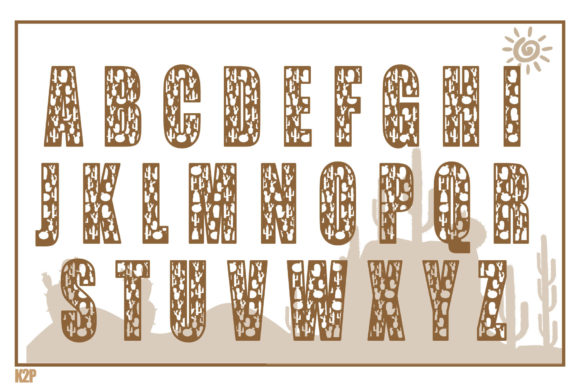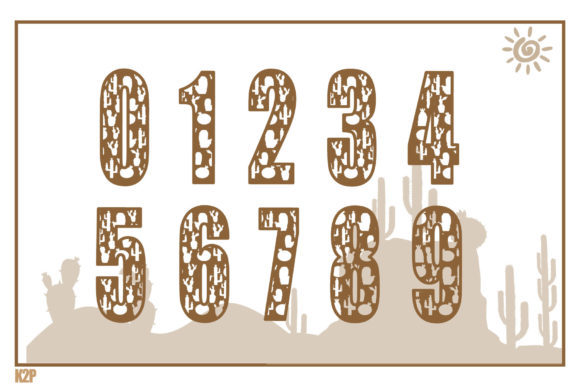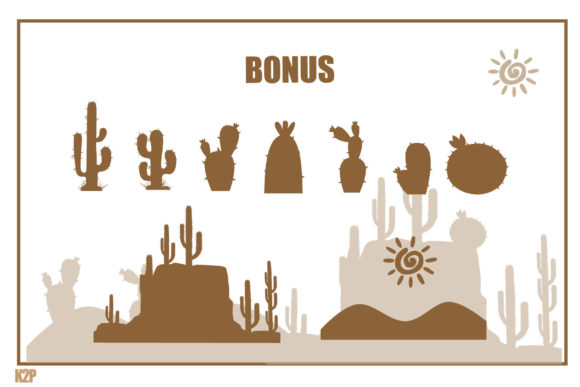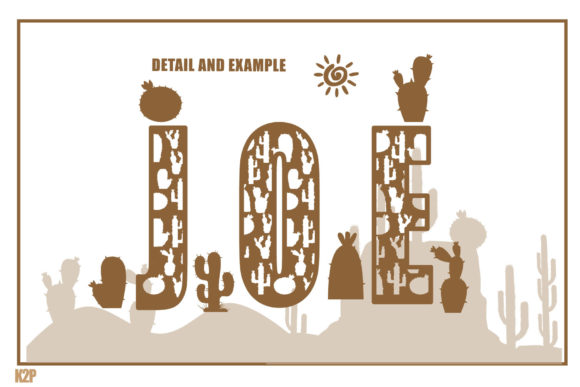
Cactus Lover Font: Elevate Your Designs with this Unique Decorative Font
Are you a designer or crafter looking for a font that can add a touch of personality to your creations? Look no further than the Cactus Lover Font. This cool and highly detailed decorative font is perfect for anyone who wants to enhance their designs and make them stand out. In this article, we’ll take a closer look at the Cactus Lover Font and explore its features, benefits, and uses.
What is Cactus Lover Font?
Cactus Lover Font is a decorative font that features intricate and detailed designs inspired by cacti. The font is perfect for creating eye-catching headings, titles, and text that will add a touch of whimsy and personality to your designs. With its unique and stylish design, Cactus Lover Font is sure to make your creations stand out from the crowd.
Key Features of Cactus Lover Font
So, what makes Cactus Lover Font so special? Here are some of its key features:
- Highly detailed design: Cactus Lover Font features intricate and detailed designs that are sure to impress. The font is perfect for creating high-quality designs that require a level of sophistication and elegance.
- Cool and stylish: The font has a cool and stylish vibe that’s perfect for designers and crafters who want to create modern and trendy designs.
- Versatile: Cactus Lover Font can be used for a wide range of design projects, from headings and titles to logos and branding.
- Easily readable: Despite its intricate design, Cactus Lover Font is easily readable, making it perfect for use in body text as well as headings.
Benefits of Using Cactus Lover Font
So, why should you choose Cactus Lover Font for your designs? Here are some of the benefits of using this unique font:
- Adds personality to your designs: Cactus Lover Font is a great way to add a touch of personality to your designs and make them stand out from the crowd.
- Perfect for creative projects: If you’re working on a creative project, such as a craft or DIY project, Cactus Lover Font is a great choice. The font’s unique design is sure to add a level of interest and personality to your project.
- Great for branding and logos: Cactus Lover Font is also perfect for use in branding and logos. The font’s stylish and sophisticated design makes it a great choice for businesses and entrepreneurs who want to create a professional and memorable brand.
How to Use Cactus Lover Font
- Use it for headings and titles: Cactus Lover Font is perfect for use in headings and titles. The font’s intricate design makes it a great choice for creating eye-catching text that will grab the reader’s attention.
In conclusion, Cactus Lover Font is a unique and stylish decorative font that’s perfect for designers and crafters who want to add a touch of personality to their creations. With its highly detailed design, cool and stylish vibe, and versatility, Cactus Lover Font is a great choice for a wide range of design projects. Whether you’re creating headings and titles, logos and branding, or craft and DIY projects, Cactus Lover Font is sure to elevate your designs and make them stand out from the crowd.